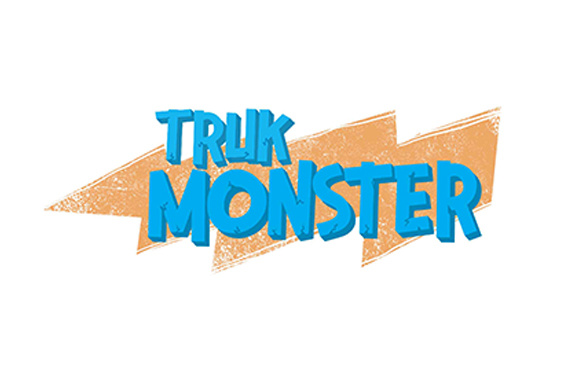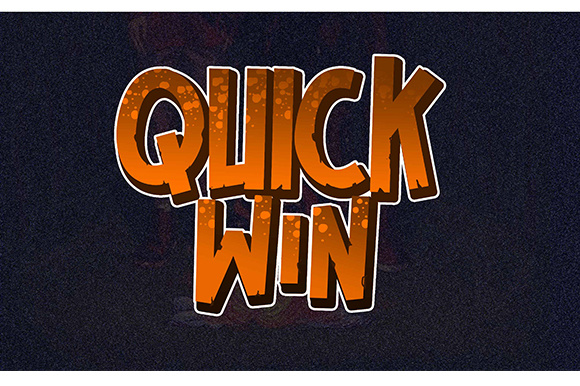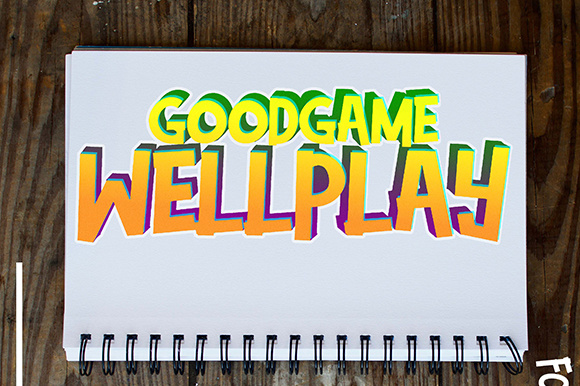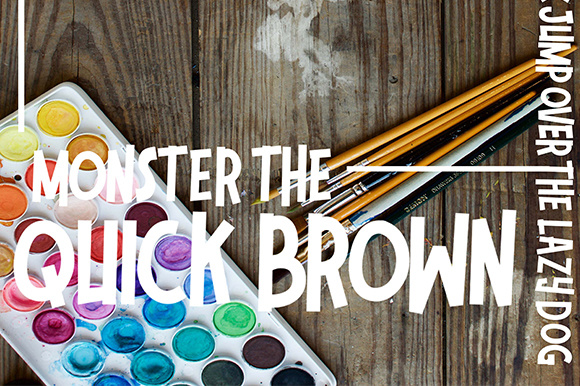
Introduction to Manymons Font
Have you ever been working on a creative project, pouring your heart and soul into the details, only to realize that the right font can make all the difference? I know I have. There’s something about finding that perfect design resource that can elevate your entire project and take it to the next level.
That’s exactly what happened when I stumbled upon the Manymons Font. Its unique blend of verticality and bulky curves, combined with sharp angular connections, gave my design a distinctive look and feel that I just couldn’t get enough of.
Key Features of Manymons Font
- High-quality, free download design resource ideal for creative projects
- Unique, hand-drawn design with a transparent background for seamless integration
- Supports a wide range of languages, making it a versatile choice for global projects
- Designed to be highly legible at various resolutions and sizes, from 10pt to 100pt
- Perfect for use in logos, branding materials, and other visual identity elements
- Includes a comprehensive character set with over 500 glyphs and accents
Honest Review: Manymons Font
I recently had the opportunity to work with the Manymons Font, a free design resource that I was excited to incorporate into my creative project. The font is available for a free download, making it an excellent choice for designers on a budget.
What works well about the Manymons Font is its high quality and versatility. The font comes with a transparent background, allowing for seamless integration with any design. The font’s modern aesthetic makes it perfect for a wide range of creative projects, from digital designs to print materials.
- ✨ High-quality design
- ✨ Versatile and modern aesthetic
- ✨ Transparent background for easy integration
However, I did encounter a few limitations with the Manymons Font. The font’s character set is limited, which may not be suitable for projects that require a wide range of characters.
- ⚠️ Limited character set
Overall, I was impressed with the Manymons Font and its potential for use in creative projects. While it may have some limitations, its high quality and free download make it a valuable resource for designers.
Introduction to Manymons Font
Manymons Font is a high-quality design resource ideal for creative projects. This versatile font is available for free download and features a transparent background, making it easy to incorporate into your designs.
Getting the Most Out of Manymons Font
To get the most out of Manymons Font, try the following tips:
- Experiment with different font sizes and colors to create a unique look.
- Combine Manymons Font with other design elements to create a cohesive design.
- Use Manymons Font in conjunction with a transparent background to create a striking design.
Common Use Cases for Manymons Font
Manymons Font is perfect for a variety of design projects, including:
- Posters